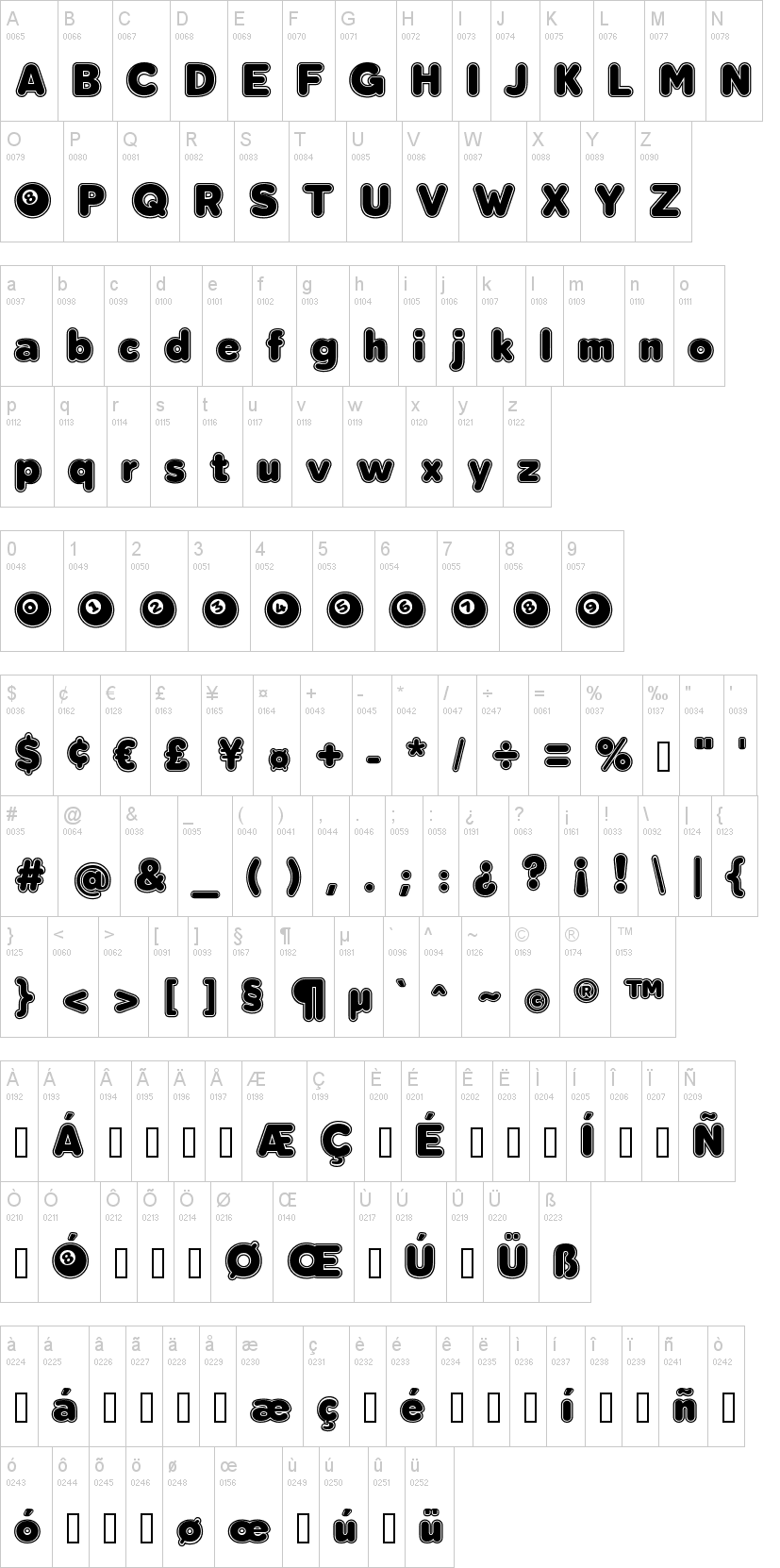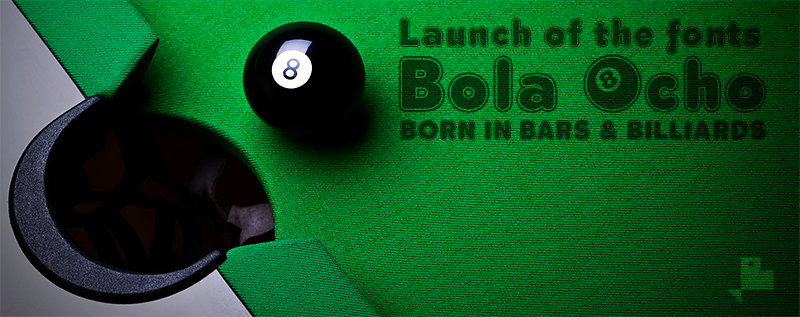
Note of the authorSans serif typography very thick and rounded, university style.
The font has several sets of numbers and monetary symbols.
Including the Bitcoin symbol: b #